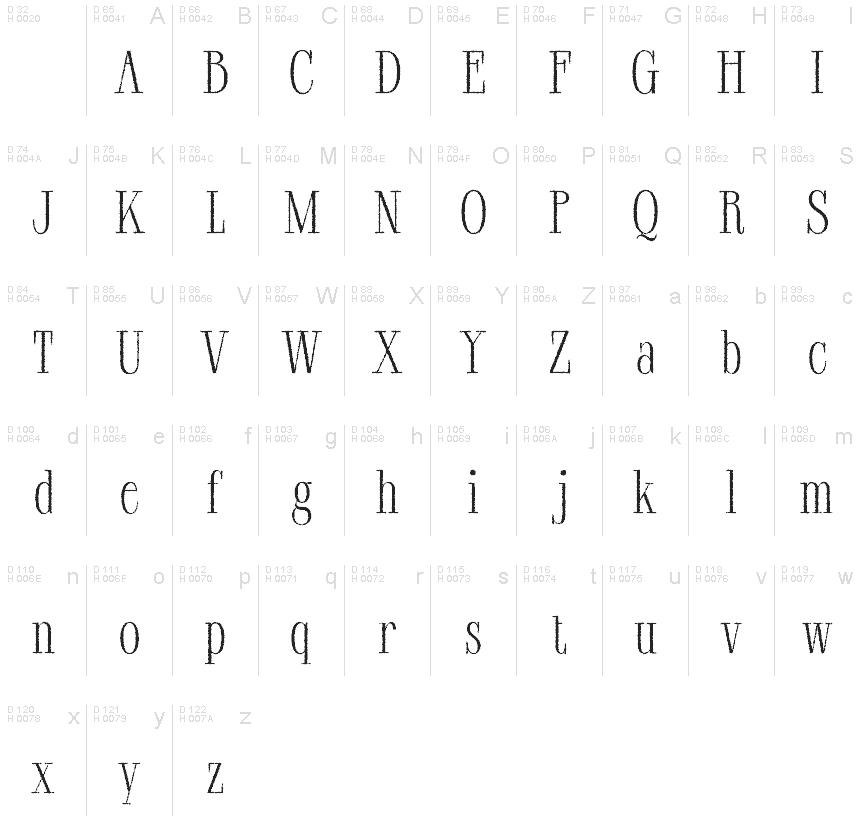
Savaira Rough Regular Demo
Savaira Rough font by Craft Supply Co. is a serif font that maintains its stylishness, elegance, and light condensed appearance. It takes an artistic turn with rough-edged outlines for a textured input, one where letters appear as printed on an old page. A font that’s all about sophistication and flair, Savaira Rough brings forth modern yet vintage designs.
Customers will always look forward to reading what magazines write in their headlines when Savaira Rough is used for the cover design. Enjoy this free rough textured font with book covers and titles, product packaging projects such as perfume packages or candles, branding designs for businesses like hotels and high-end restaurants, or apparel items!